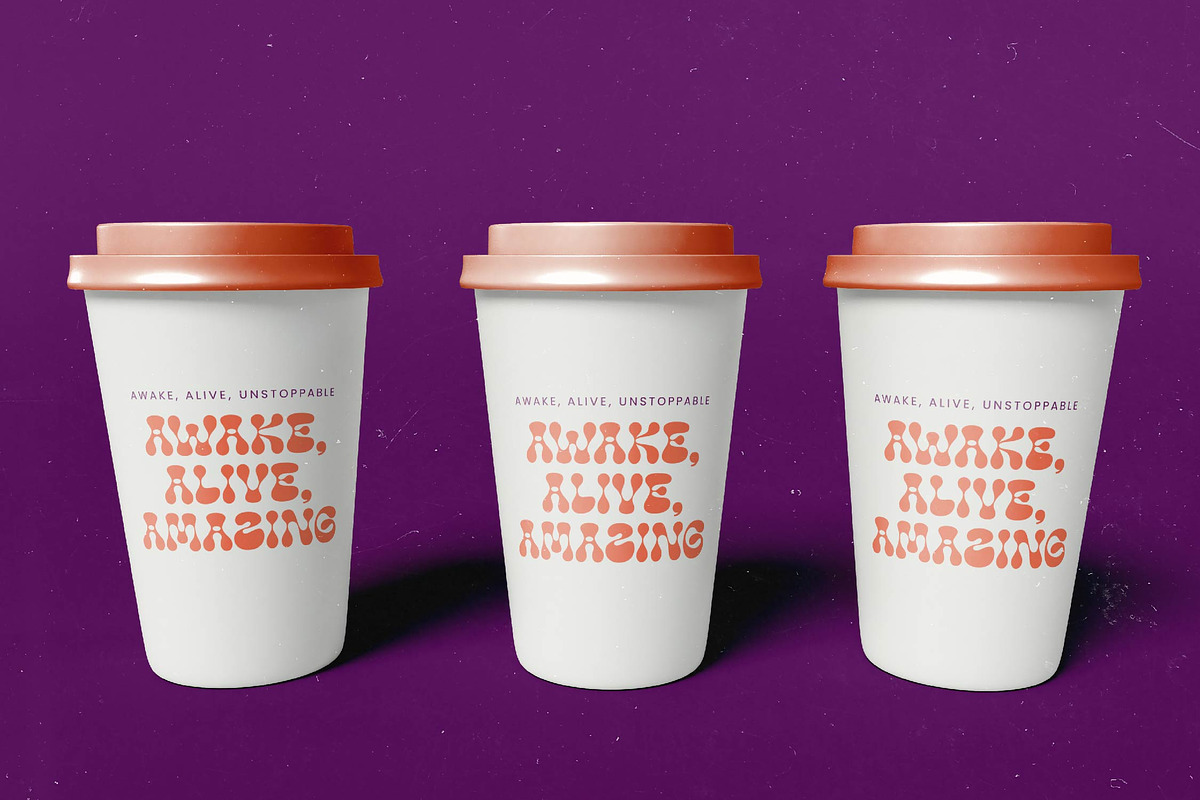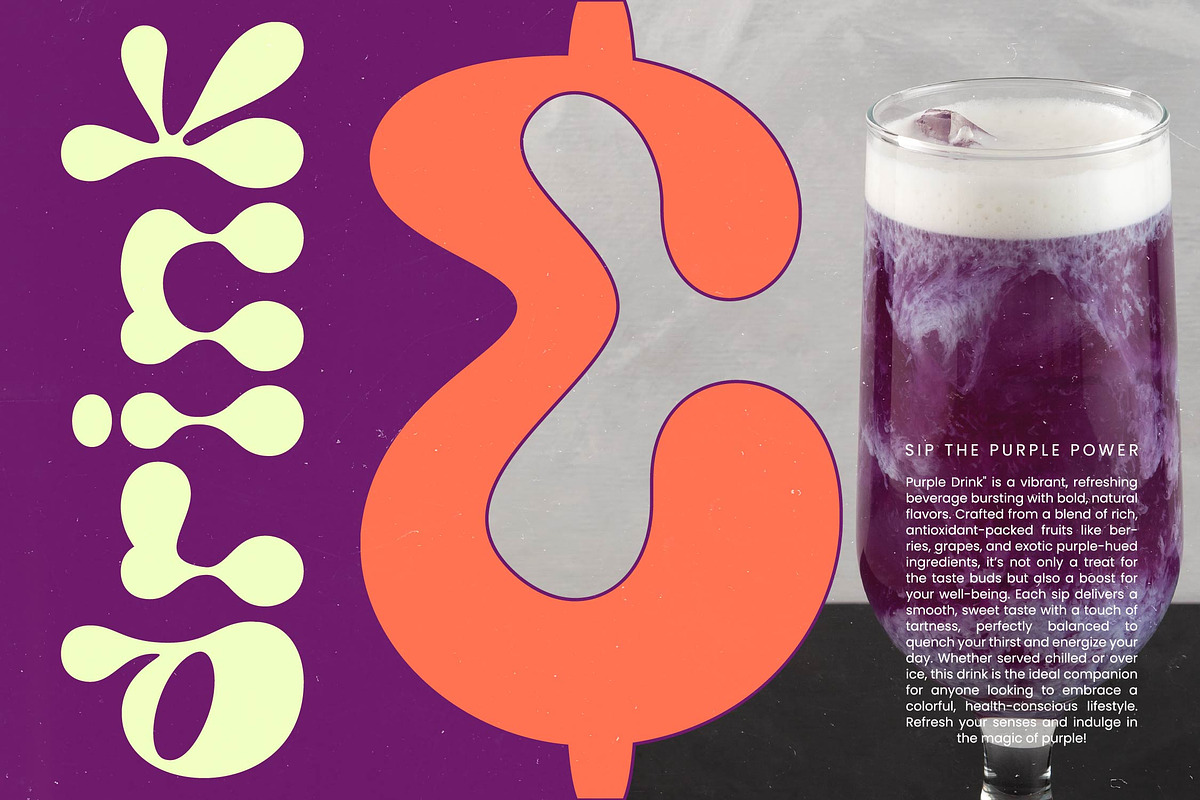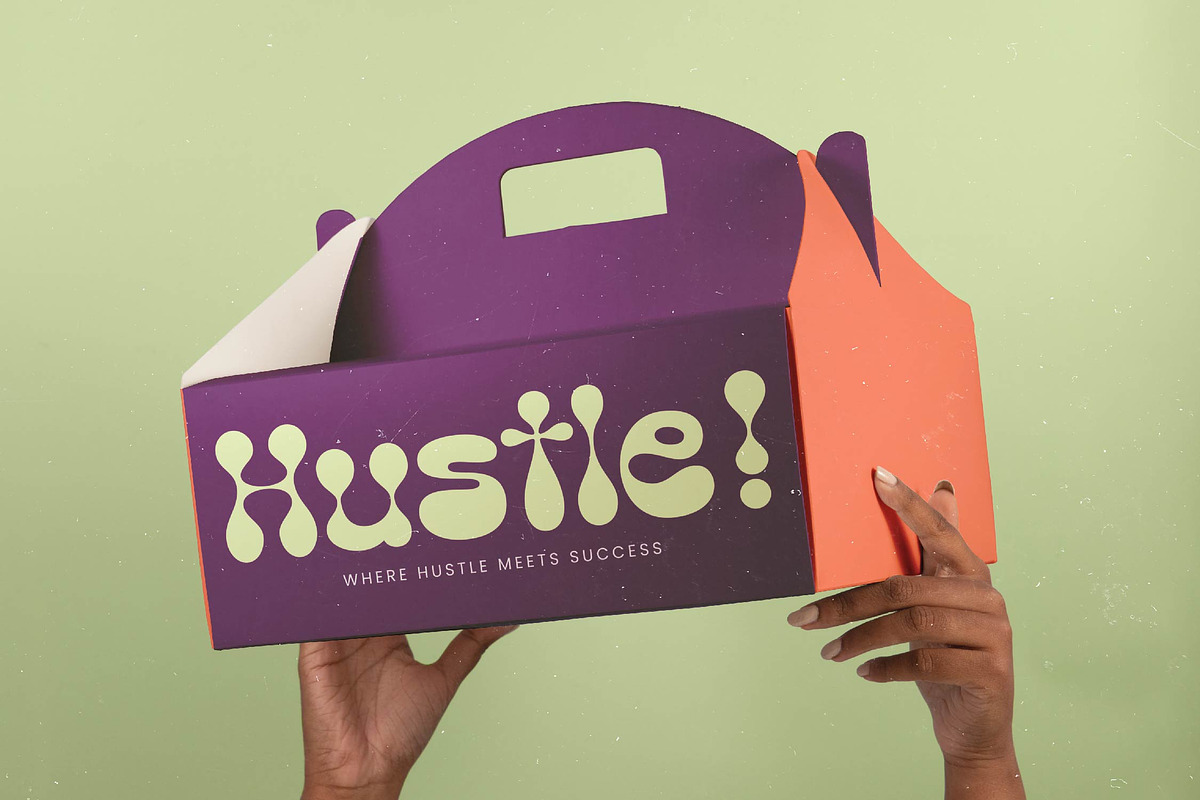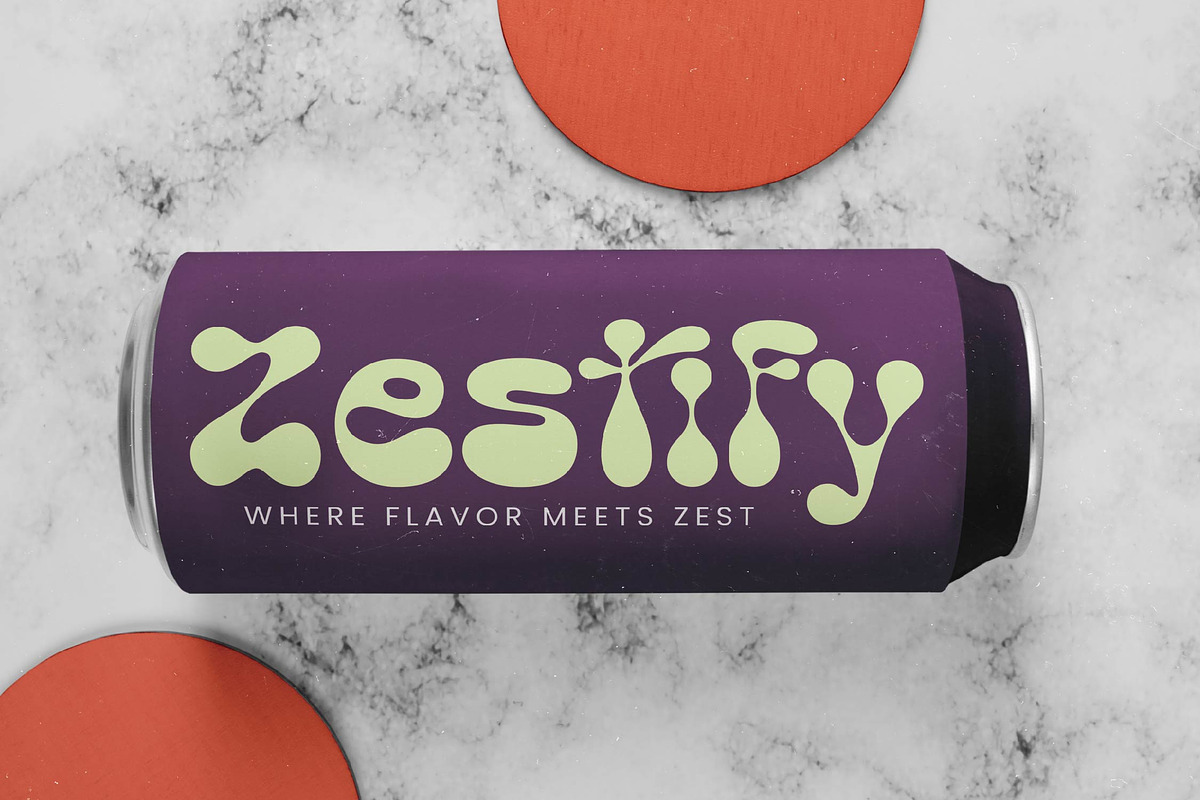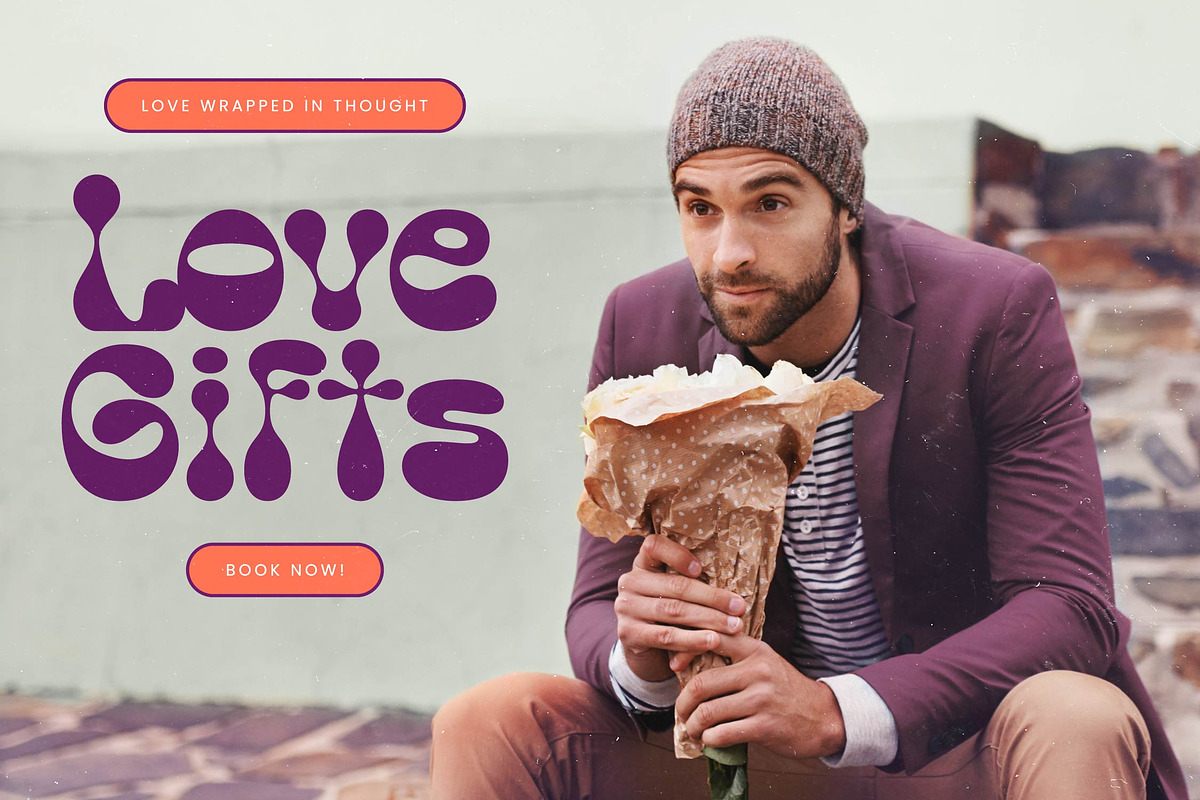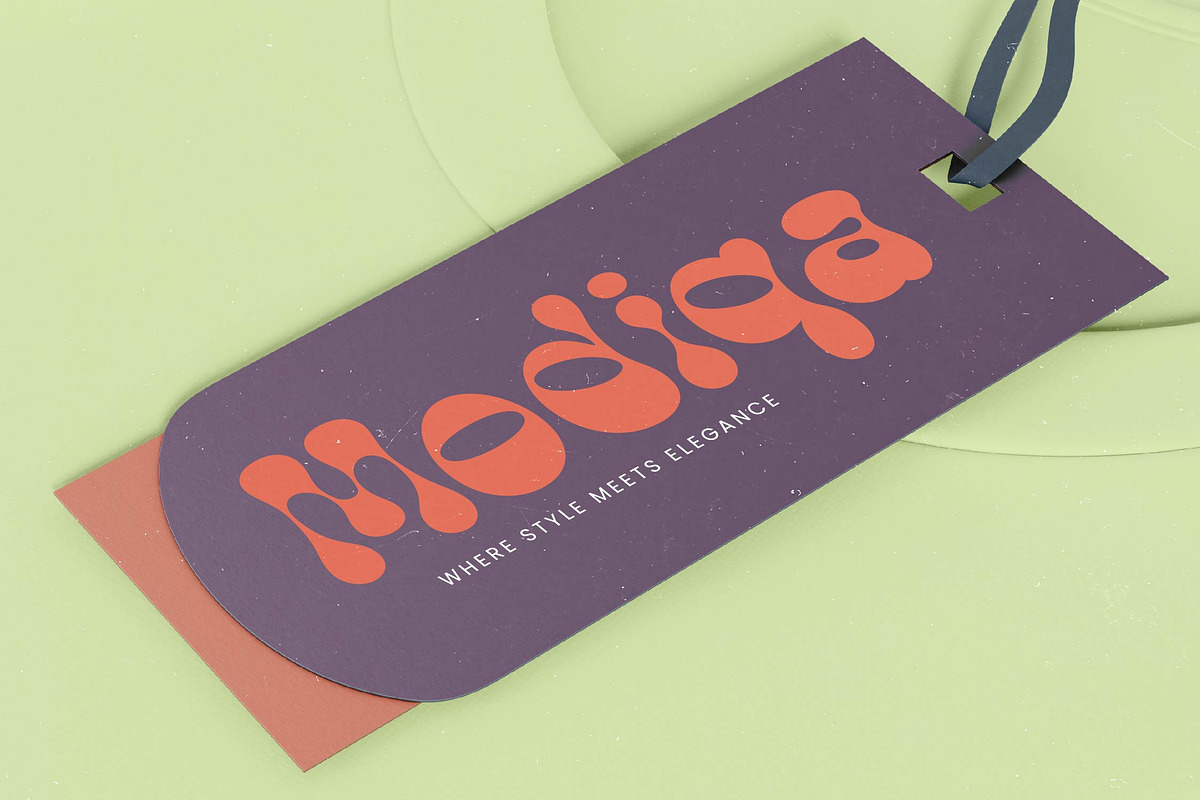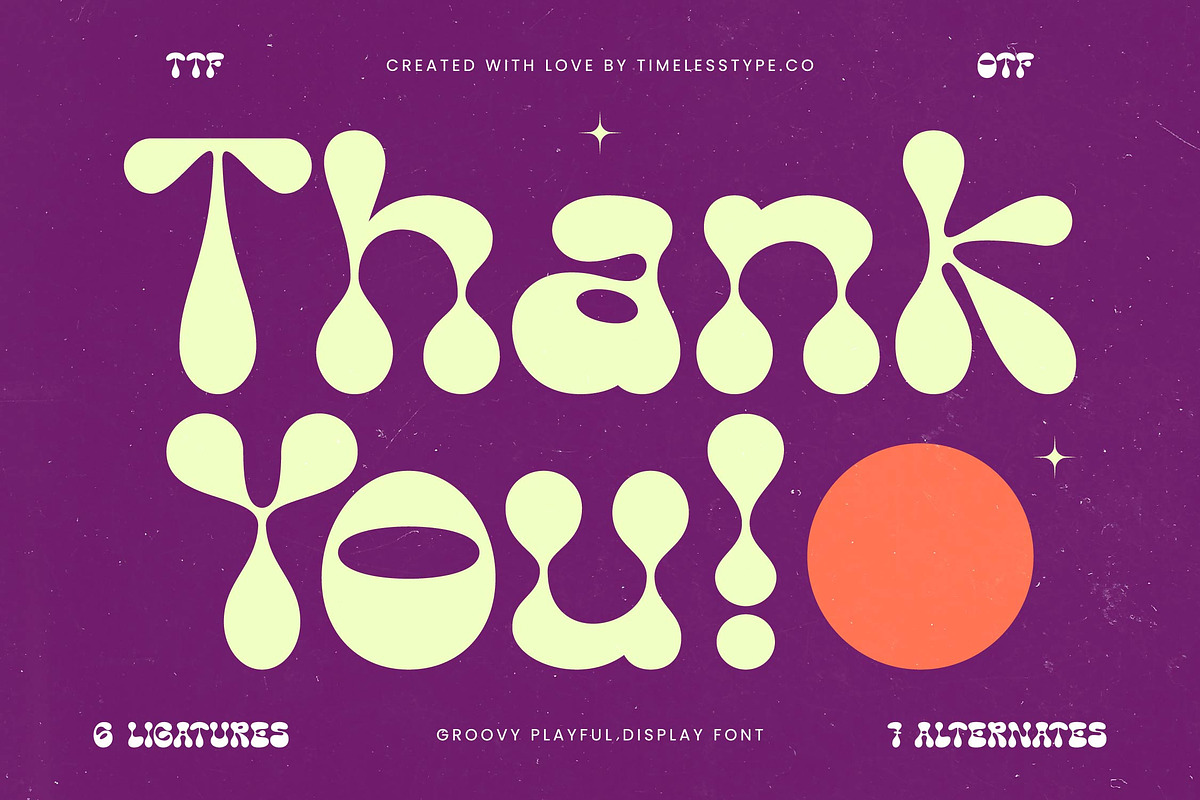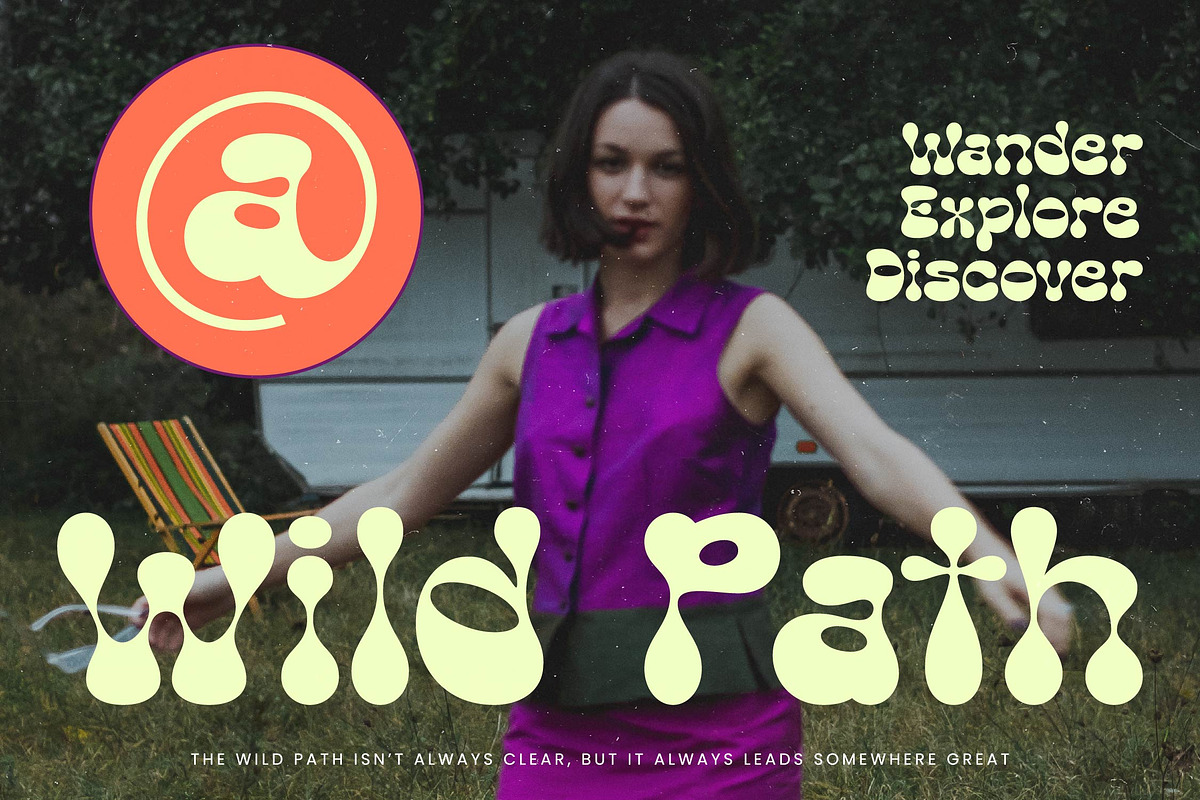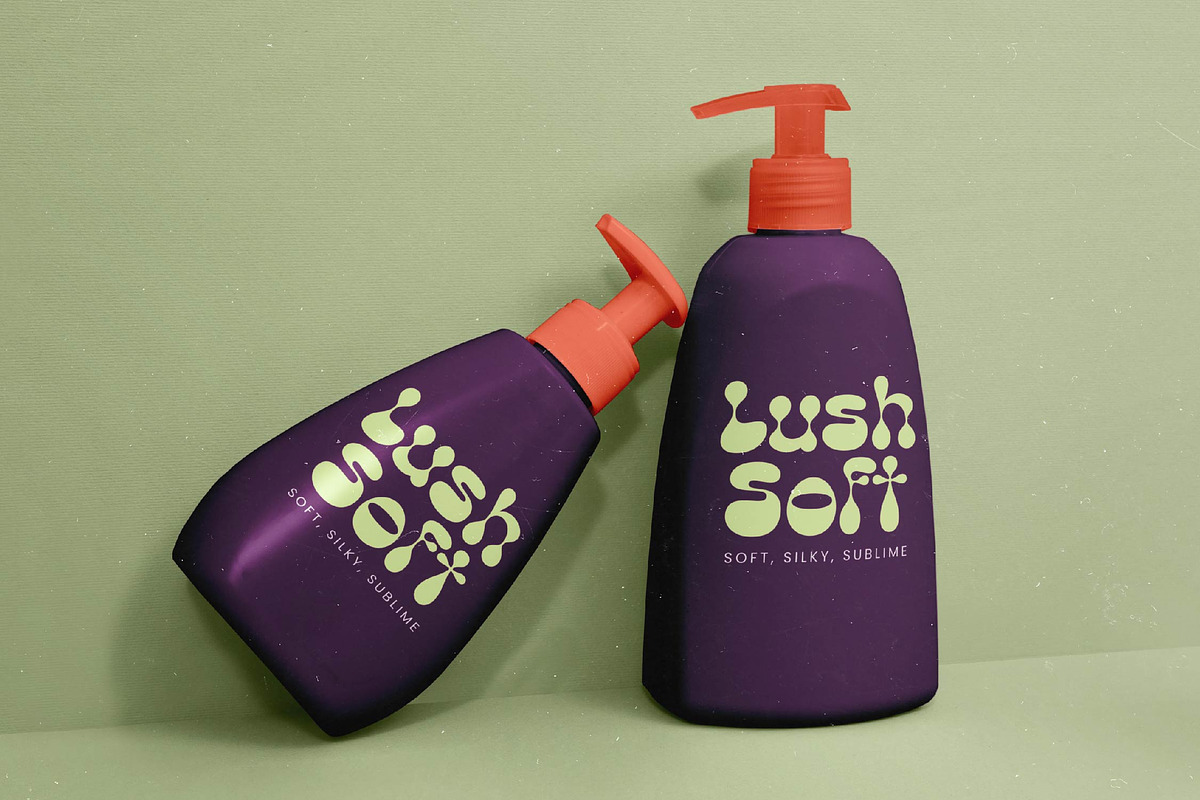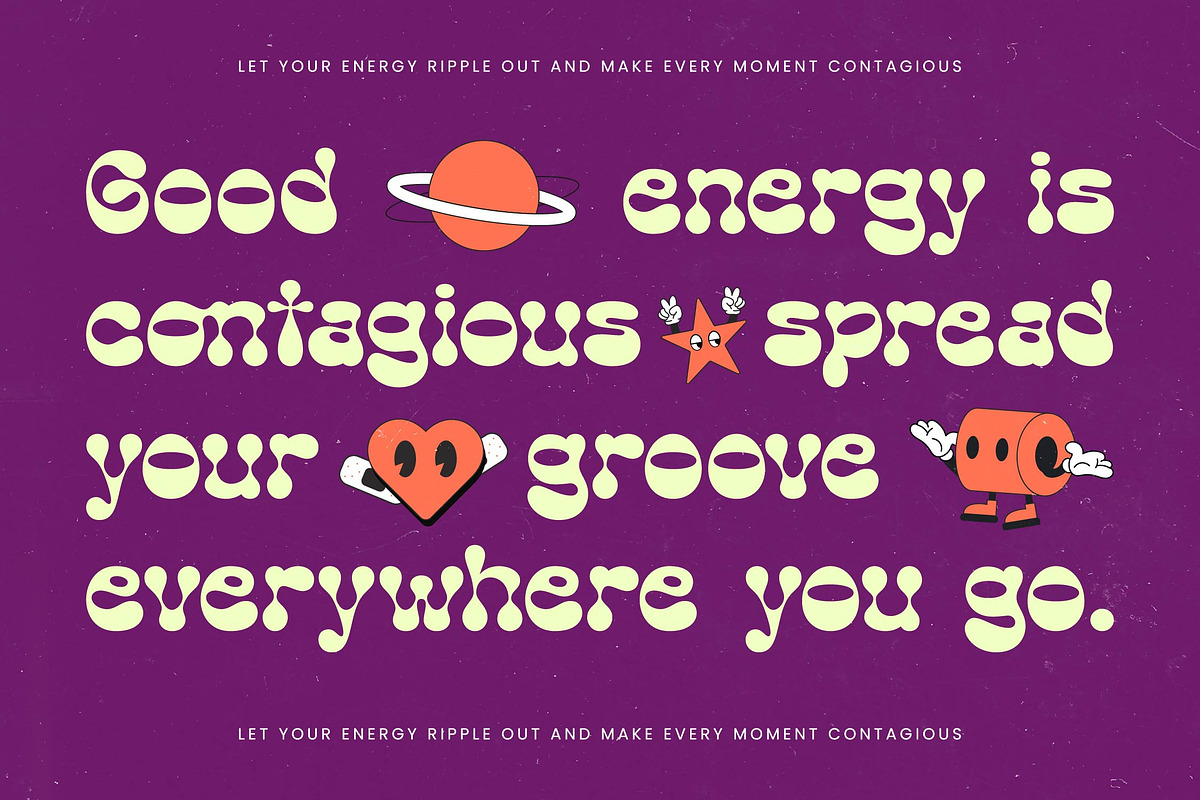
Funky Motion - Groovy Display Font
Embrace the rhythmic flow of Funky Motion, a typeface that captures the vibrant soul of retro-modern design in every curve. This font is more than just lettering; it is a visual experience designed to bring life and movement to your creative canvas.
Drawing deep inspiration from the psychedelic posters and liquid light shows of the 1970s, this font embodies a sense of liberation and artistic rebellion. Each character is crafted to mimic the organic, melting forms found in vintage counterculture aesthetics.
As a modern serif display, this typeface delivers a massive branding impact through its eccentric silhouettes and luxury typography roots. It serves as an exceptional editorial font with a high-contrast serif feel that balances playful energy with professional execution.
Riding the wave of the modern serif trend, this font is an essential tool for designers seeking editorial display fonts that feel human and expressive. It excels in the realm of character-driven typography, offering a distinct personality that cuts through the noise of generic digital styles.
From high-concept logo design to cohesive visual branding, this typeface is versatile enough for bold packaging and high-street fashion lookbooks. It brings a unique flair to editorial spreads and can even add a touch of whimsical elegance to a modern wedding suite.
The font comes fully equipped with creative ligatures and unique alternates that allow you to customize every word to perfection. With full multilingual support and a wide array of international characters, your designs will maintain their groovy aesthetic across various languages and regions.